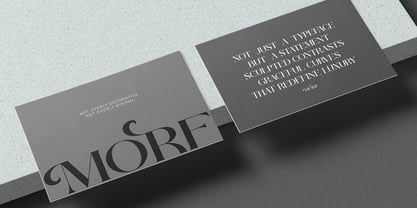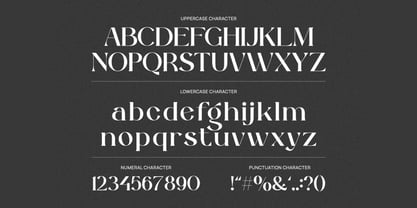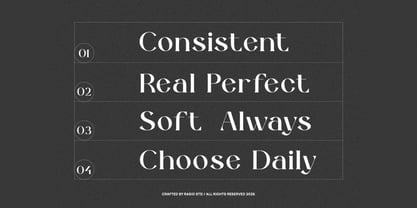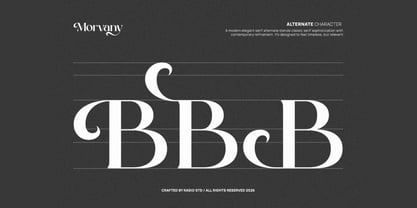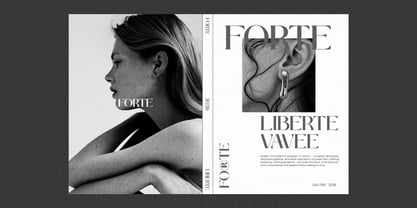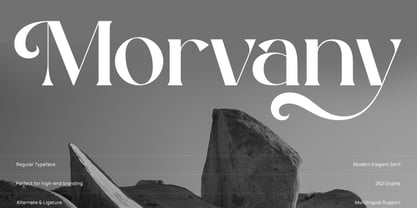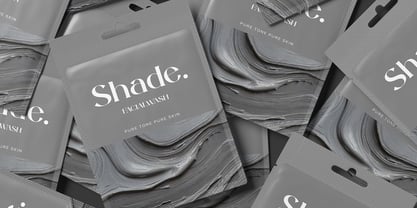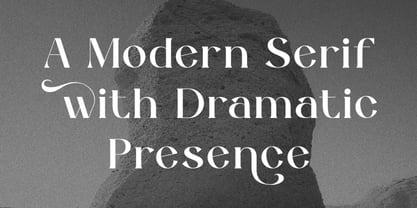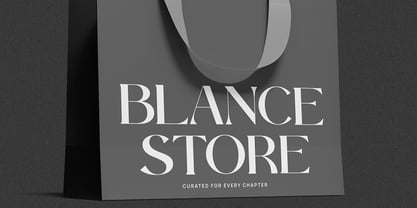
Morvany
Morvany is a refined modern serif typeface crafted with high contrast strokes, graceful curves, and distinctive dramatic details. Designed to evoke sophistication and luxury, it features elegant serifs, stylish alternates, and expressive ligatures that add personality to headlines and branding compositions. Morvany is ideal for luxury brands, fashion houses, beauty products, wedding stationery, high-end packaging, editorial layouts, boutique logos, jewelry branding, and premium marketing campaigns. Its dramatic contrast and elegant curves create a timeless yet contemporary feel.